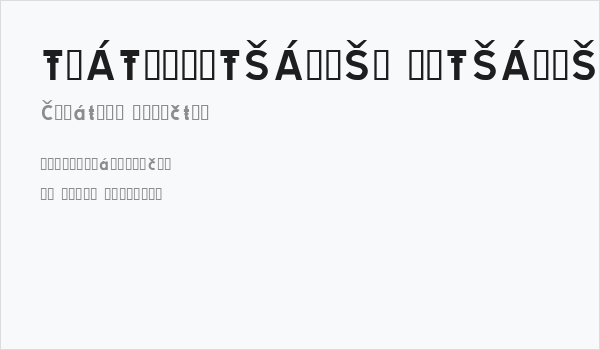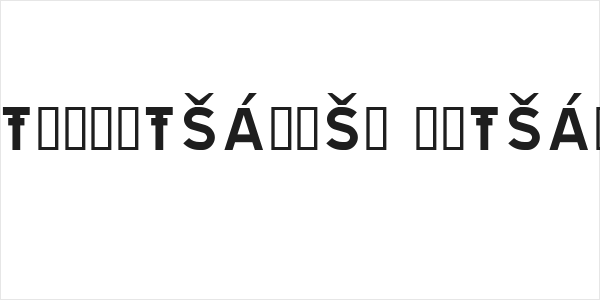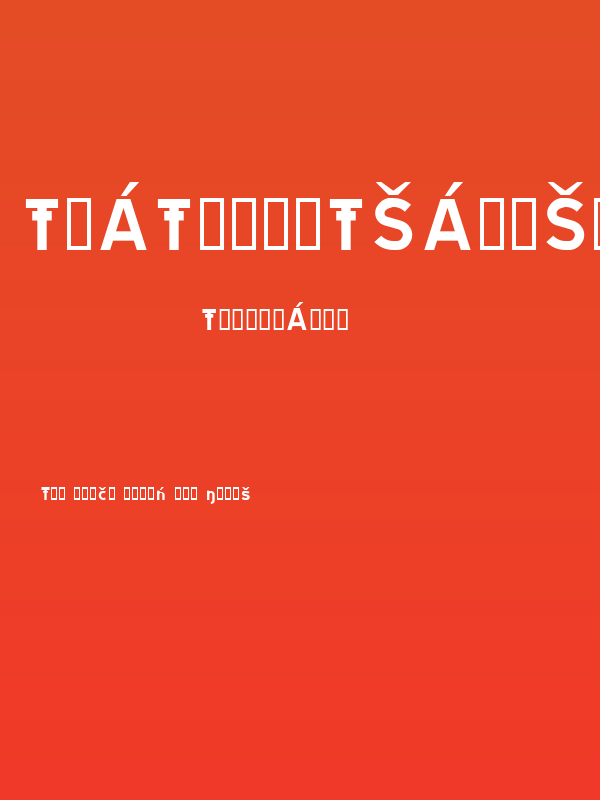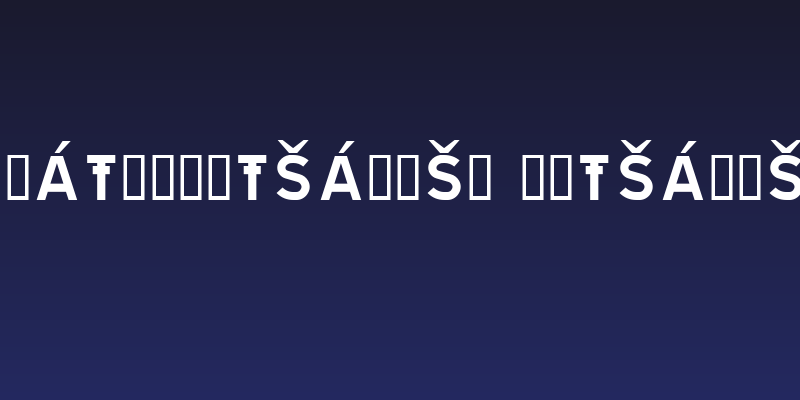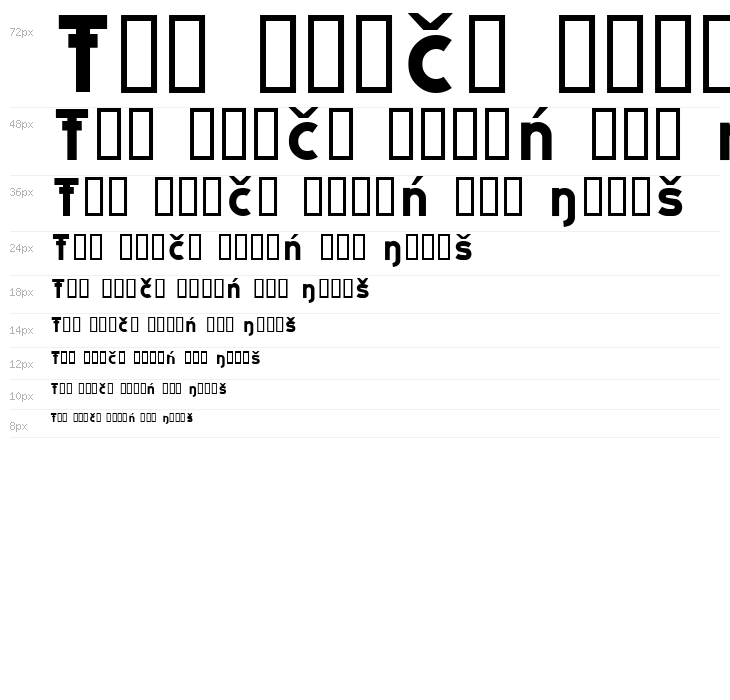
TRATEXVITSAMISK Font
TRATEXVITSAMISK Description
This font features a bold and modern design with clean lines and a strong presence. The characters are well-defined with a consistent stroke width, giving it a uniform appearance. The uppercase letters are prominent and assertive, while the lowercase letters maintain a balanced and cohesive look. The font includes a variety of accented characters, making it versatile for multilingual use. Its geometric shapes and clear structure make it suitable for both digital and print media. The overall aesthetic is contemporary, with a focus on readability and impact.
| Proposed Projects | Ideal for branding, advertising, headlines, and digital media where a strong, modern presence is needed. |